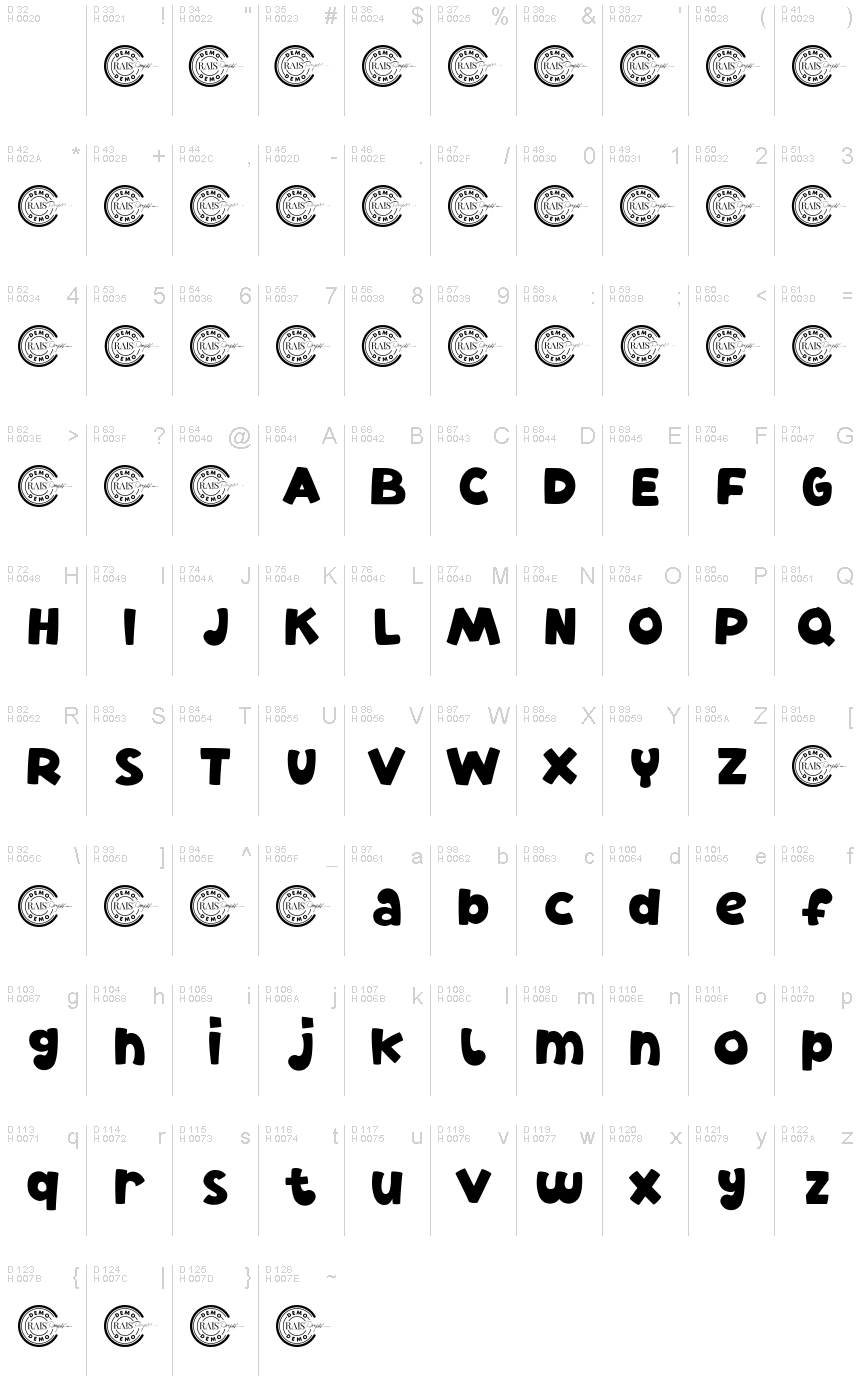
Jelly Funny Demo
Jelly Funny font by RaisProject is a cartoon font with bold designs and playful characters. Its statement letters instantly capture the attention of the readers, making it an ideal display typeface. The free font features rounded character edges, high contrast elements, and a whimsical yet friendly mood.
Jelly Funny is fun to work with for titles, banners, product labels, headers, and much more. Design posters for kids’ events or websites that present educational projects using this selection.